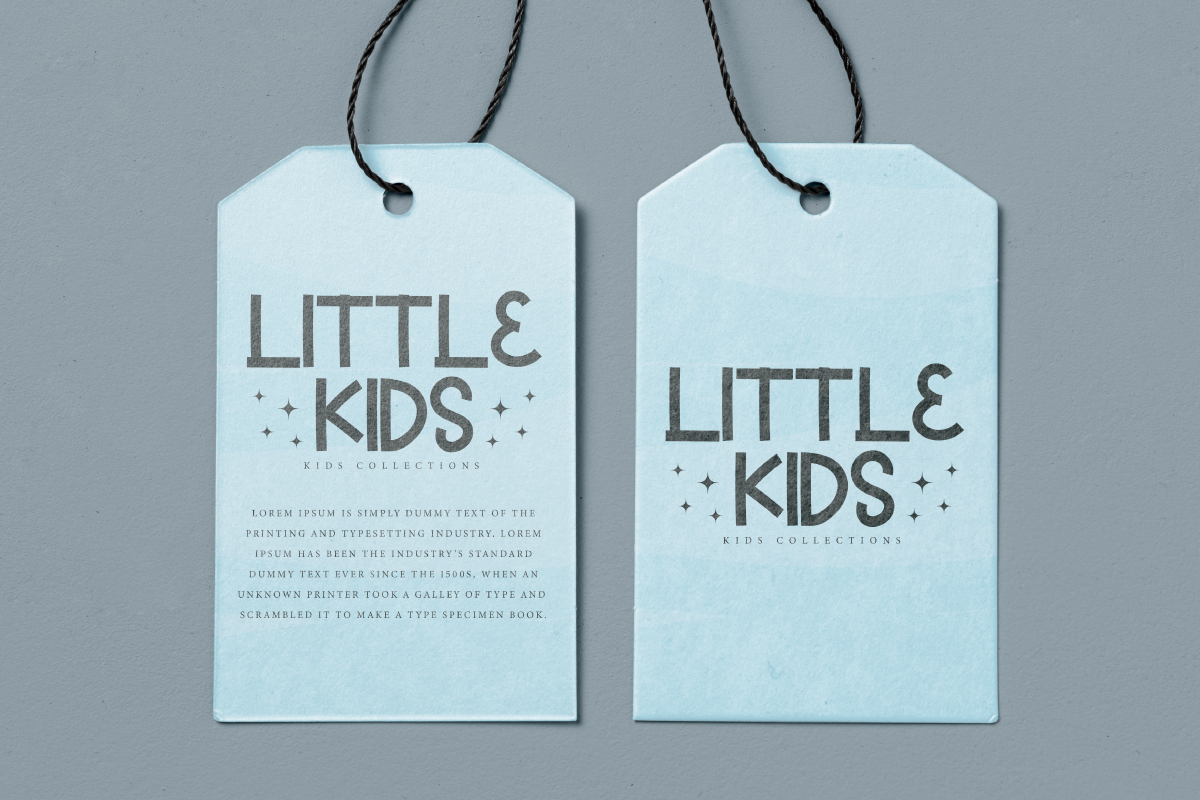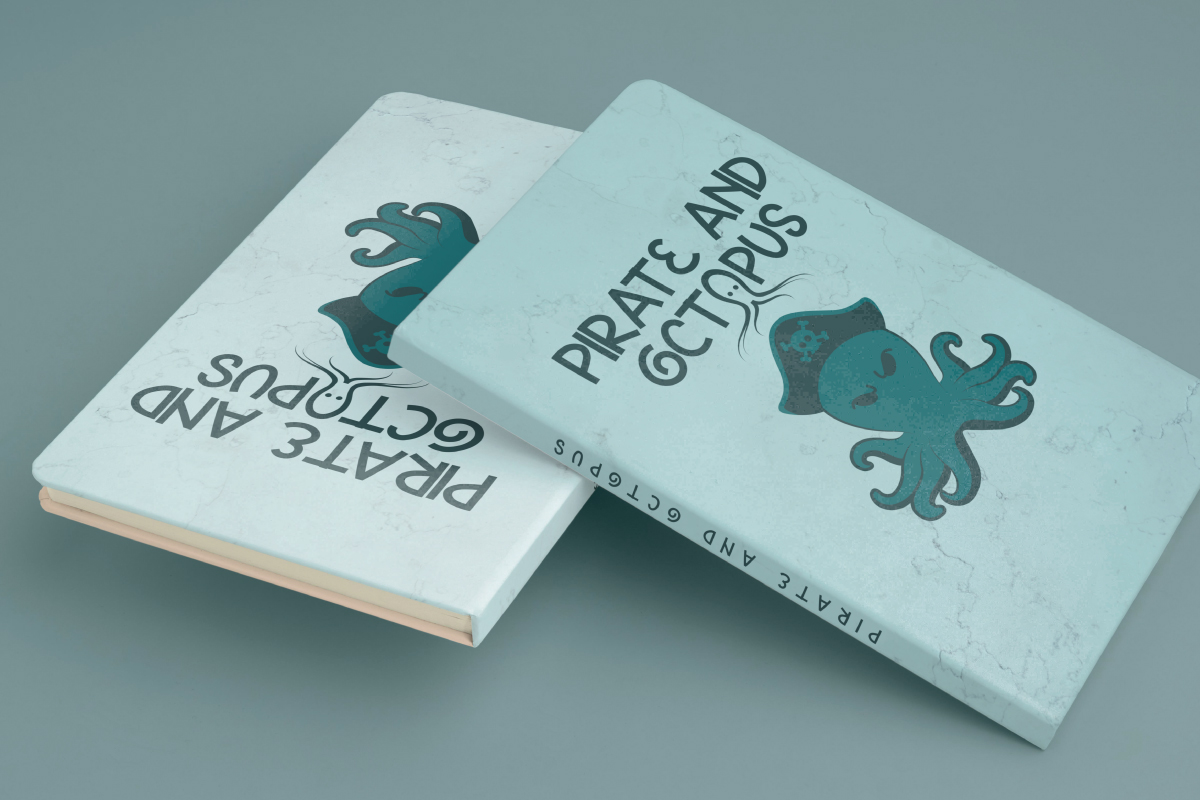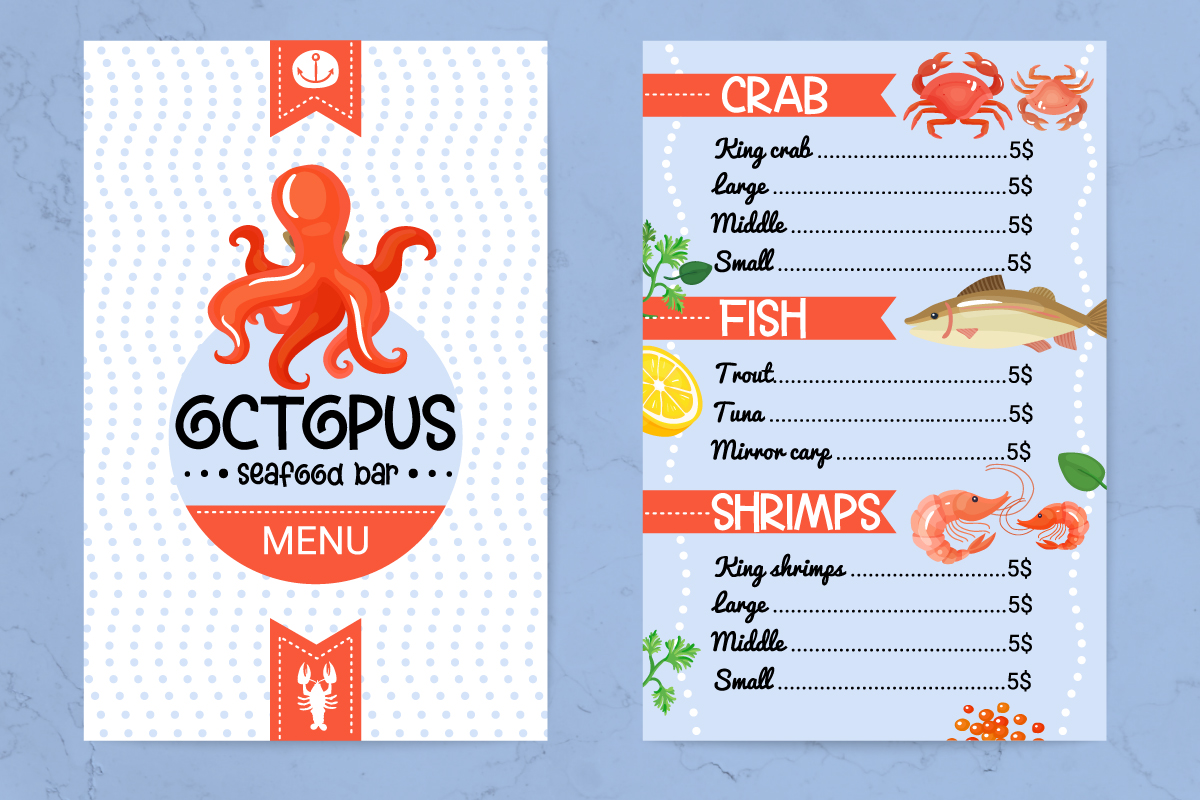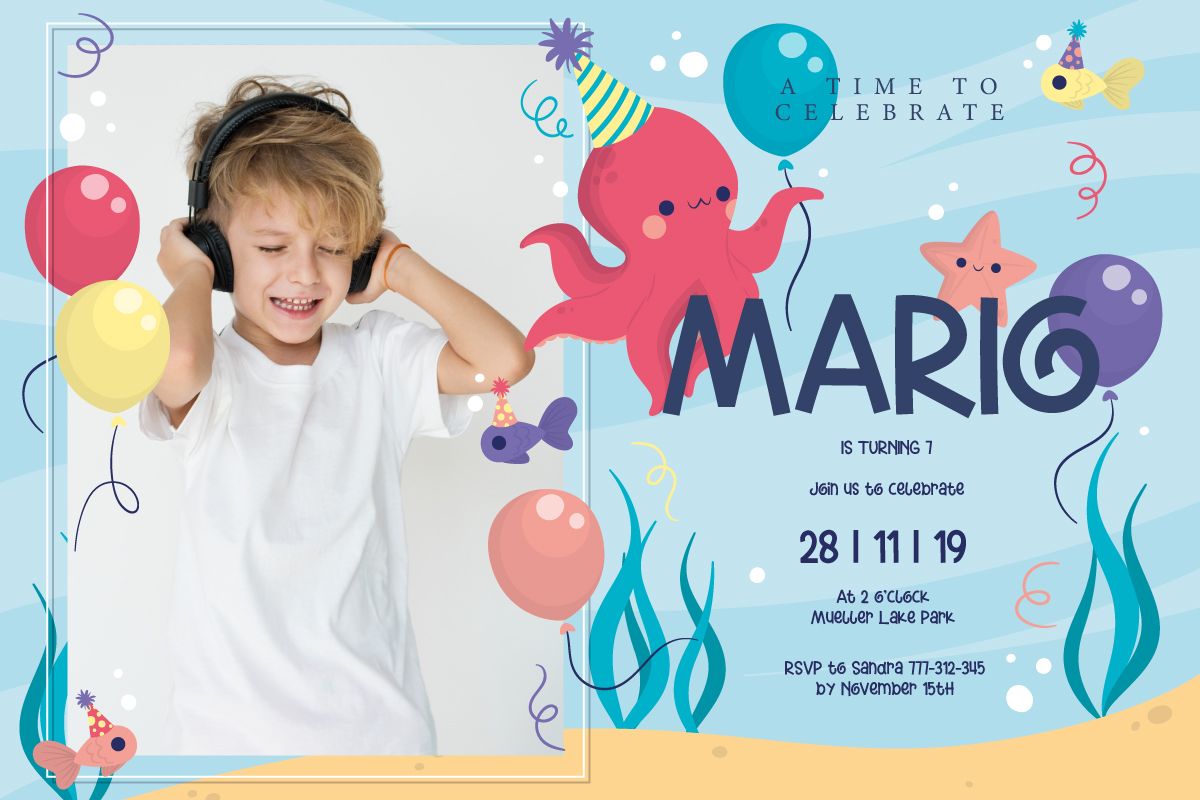
Fun Octopus Font
Fun Octopus Display Font
This is a playful display font that is sure to add a touch of cheerful to any of your projects, inspired by a cute octopus. The octopus details make this font great for seafood restaurant menu, birthday invitation, comic, greeting cards, label, pirate’s crafts, title, and is the perfect choice for any children activity or school project.